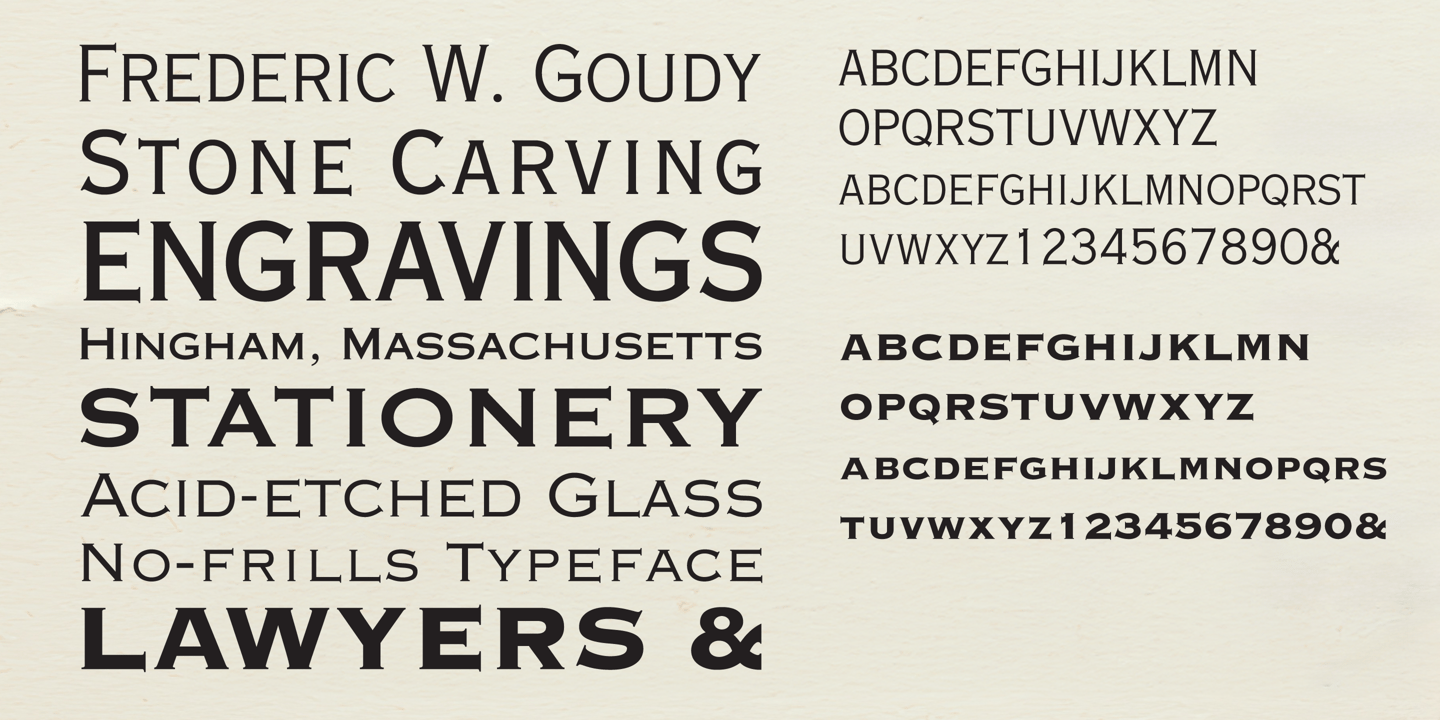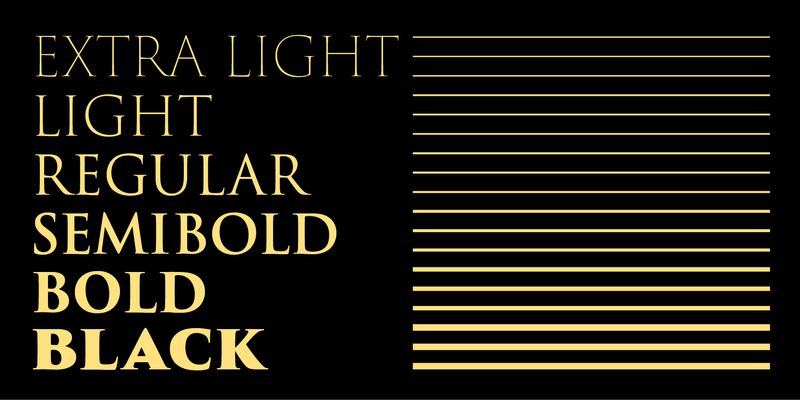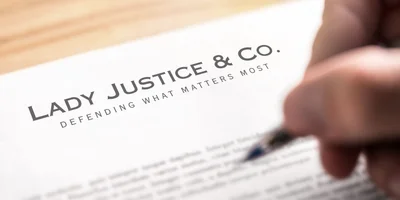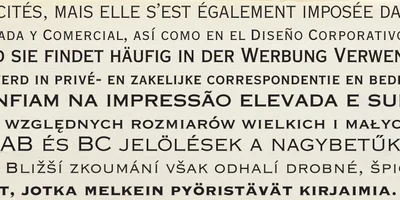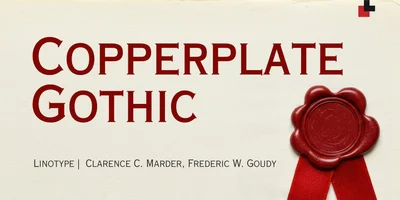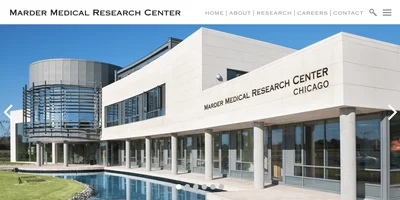
Copperplate Gothic vs Trajan Pro
Copperplate Gothic and Trajan Pro are both display typefaces sharing a formal foundation. Where Copperplate Gothic leans display, Trajan Pro brings editorial, expressive. Compare which suits your Formal project.
Copperplate Gothic
Display
Trajan Pro
| Feature | Copperplate Gothic | Trajan Pro |
| Classification | display | display |
| Language Support | latin | latin, latin-extended |
| Source | Bitstream | Adobe |
Recommended: Copperplate Gothic
- display design character
- Suited for Legal and Invitations
- From bitstream
Consider: Trajan Pro
- editorial, expressive design character
- Suited for Film and Branding
- From adobe